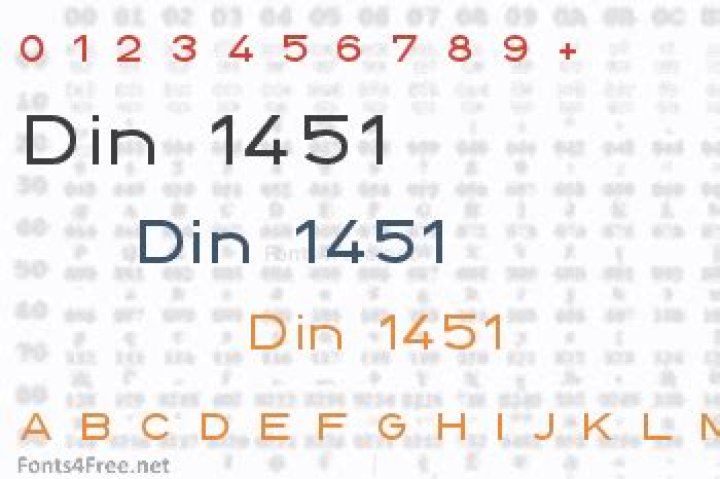
Named DIN 1451, the font was defined in 1931 and in 1936 became the standard font for german railroads, highway, road signs, and car license plates. All the fonts offered for download in this article are free for both personal and commercial use, licensed under SIL Open Font License → Font licenses explained.
What is DIN in font?
Foundry. FontFont. FF DIN is a sans-serif typeface in the industrial or “grotesque” style. It was designed in 1995 by Albert-Jan Pool, based on DIN-Mittelschrift and DIN-Engschrift, as defined in the German standard DIN 1451. DIN is an acronym for Deutsches Institut für Normung (German Institute of Standardisation).
Alte Din. There is now an OFL-licensed, completely free/libre version of DIN called Alte DIN. This is legal because DIN 1451 is a product of the German government, and so is in the public domain — only the individual interpretations of it by various font foundries are protected and copyrighted.
FF DIN is a best-selling typeface created by Dutch type designer Albert-Jan Pool, and includes almost 60 styles. Roboto is a Google alternative that can replace the DIN font.
…is closely related to or a relative of DIN 1451, a font originally conceived as an standard font for industry by DIN, a German standard body.
Who designed DIN 1451?
Walter Portsmann conceived the first DIN sizes for use on paper; Albert-Jan Pool, a Hamburg based designer from Netherlands then digitalized the font in 1995. DIN 1451 celebrated its 100th anniversary in 2005.
Is DIN a good font?
DIN is known for its intentionally unrefined and primitive look—like it was created by an engineer rather than a designer. In 1995, DIN was updated by Dutch designer Albert-Jan Pool and released through FontFont. Its popularity exploded after that and it continues to be a popular typeface on the web.
What Google font is like DIN?
Barlow
Barlow. The more versatile Barlow at Google Fonts is closest Google Font to DIN, and perhaps the all-around best free alternative.
What is the meaning of 1451 font?
Din 1451 is a basic, sans-serif font designed by Peter Wiegel. The font is licensed as Free. The font is free for both personel and commercial usages. In doubt please refer to the readme file in the font package or contact the designer directly from peter-wiegel.de.
What is the full form of Din?
DIN stands for Deutsche Industrienorm, German Industrial Standard. In 1936, the German Standard Committee settled upon DIN 1451 as the standard font for the areas of technology, traffic, administration, and business. The committee chose a sans serif font because of its legibility and easy-to-write forms.